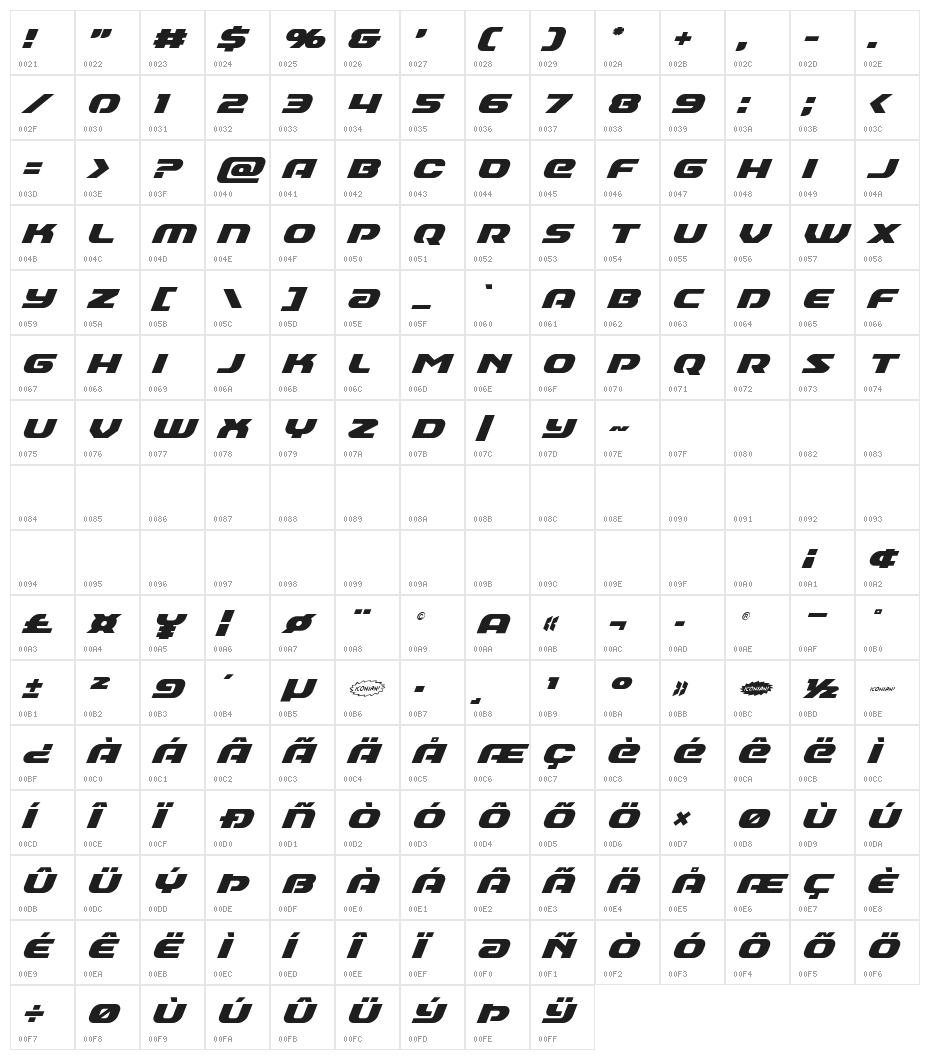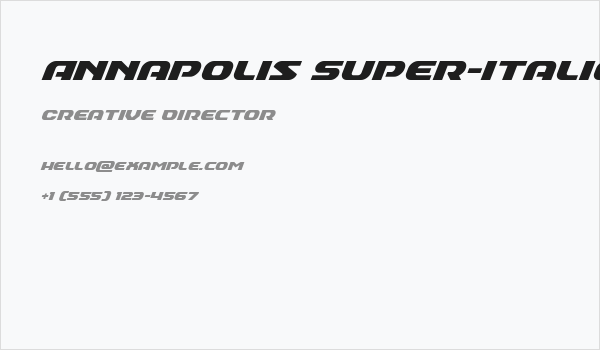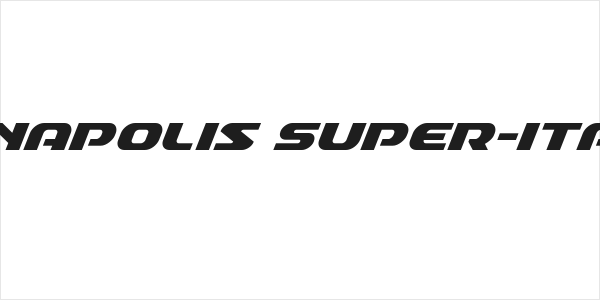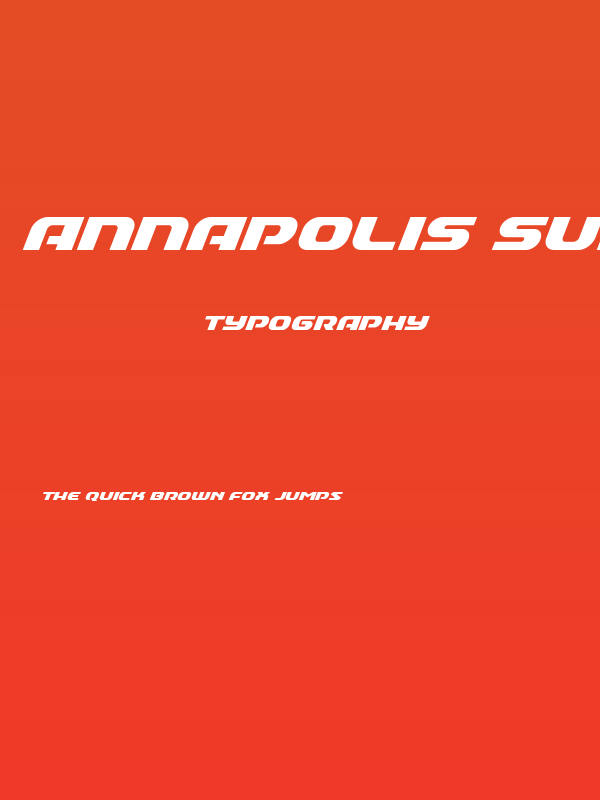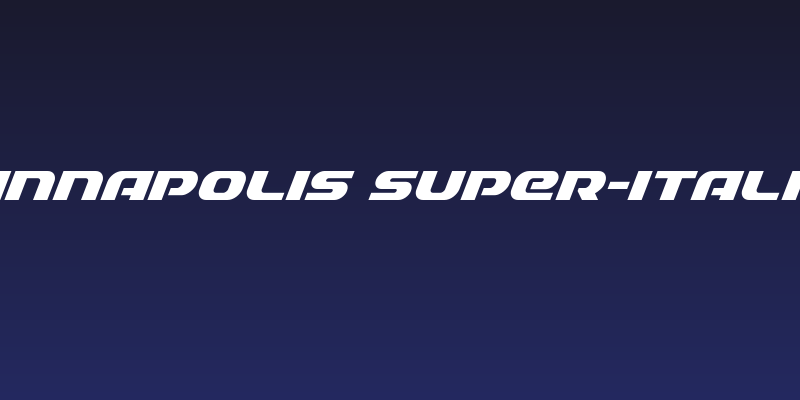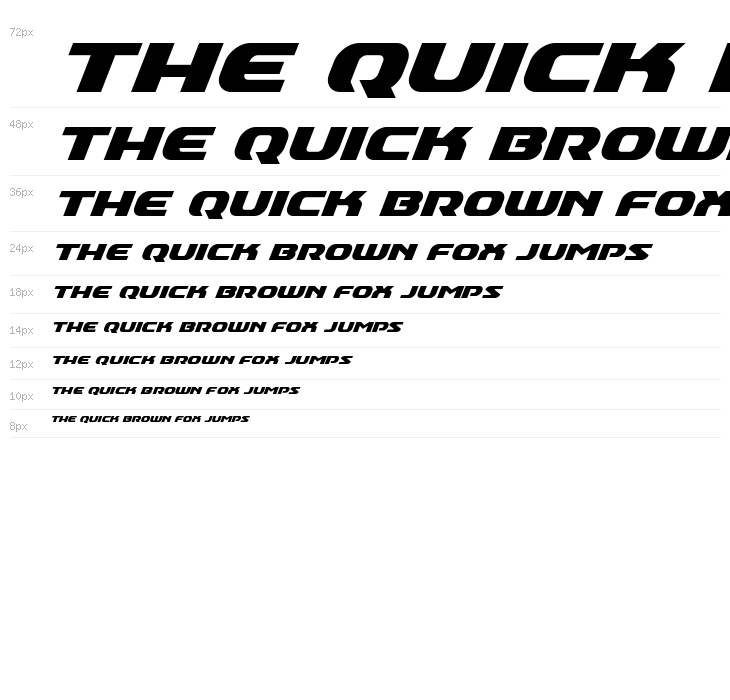
Annapolis Super-Italic Font
Annapolis Super-Italic Description
This font features a bold and dynamic style with a strong italic slant, giving it a sense of motion and energy. The characters are wide and have a futuristic, sporty appearance, making them stand out prominently. The strokes are thick and consistent, providing a uniform look across all characters. The design includes sharp angles and smooth curves, creating a sleek and modern aesthetic. The numbers and special characters maintain the same bold and italicized style, ensuring consistency throughout the typeface.
| Proposed Projects | Ideal for sports branding, automotive designs, dynamic posters, and futuristic themes. |